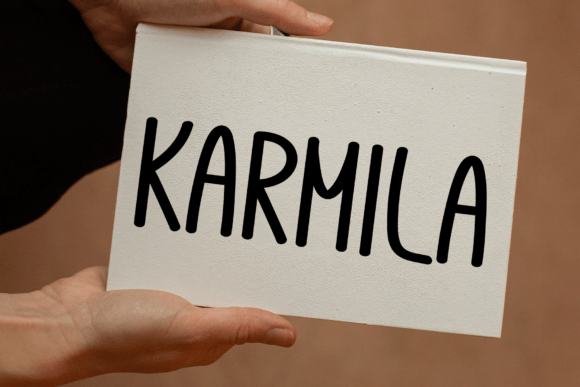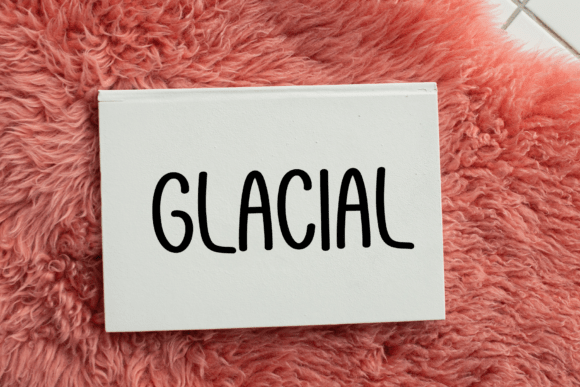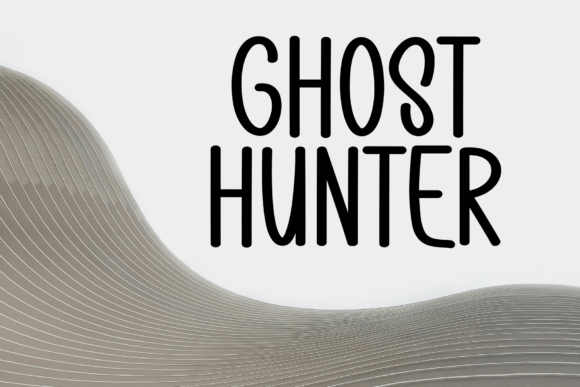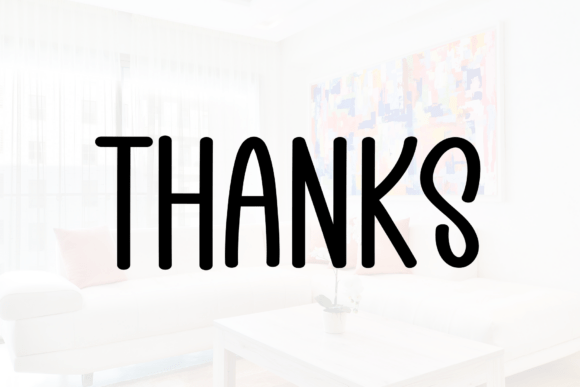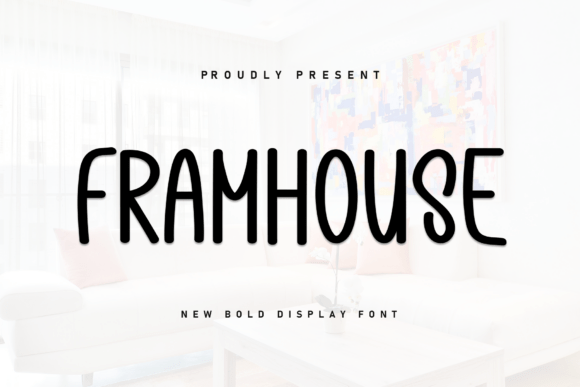
Framhouse Font: Elevate Your Designs with a Modern Country-Chic Aesthetic
In the world of typography, fonts play a crucial role in conveying the tone and personality of a brand. For designers and crafters looking to add a touch of rustic charm to their creations, Framhouse Font is an excellent choice. This clean, sturdy, and highly approachable display font is designed to bring a modern “country-chic” feel to your designs, making it perfect for a wide range of applications.
What is Framhouse Font?
Framhouse Font is characterized by its tall, condensed letterforms and smooth, monolinear construction. This unique combination gives the font a distinctive look that balances structural clarity with a warm, handcrafted spirit. The bold presence and high legibility of Framhouse make it an ideal choice for various design projects, from home decor branding to artisanal kitchen labels, farmhouse-style signage, and organized lifestyle blog headers.
Key Features of Framhouse Font
- Clean and Sturdy Design: Framhouse Font boasts a clean and sturdy design, making it perfect for headlines, titles, and short paragraphs of text.
- Tall and Condensed Letterforms: The font’s tall and condensed letterforms give it a unique and stylish appearance, setting it apart from other fonts.
- Smooth Monolinear Construction: The smooth monolinear construction of Framhouse Font adds a touch of sophistication and elegance to any design.
- High Legibility: The font’s high legibility makes it easy to read, even at smaller sizes, making it perfect for a wide range of applications.
Use Cases for Framhouse Font
Framhouse Font is incredibly versatile and can be used in a variety of design projects, including:
- Home Decor Branding: Add a touch of rustic charm to your home decor branding with Framhouse Font. Its modern country-chic aesthetic makes it perfect for home decor labels, packaging, and marketing materials.
- Artisanal Kitchen Labels: Framhouse Font is an excellent choice for artisanal kitchen labels, adding a touch of warmth and personality to your products.
- Farmhouse-Style Signage: The font’s bold presence and high legibility make it perfect for farmhouse-style signage, including welcome signs, directional signs, and more.
- Organized Lifestyle Blog Headers: Framhouse Font is also perfect for organized lifestyle blog headers, adding a touch of modern country-chic style to your website or blog.
Why Choose Framhouse Font?
With so many fonts available, why choose Framhouse Font? Here are just a few reasons:
- Unique Aesthetic: Framhouse Font offers a unique and stylish aesthetic that sets it apart from other fonts.
- High Versatility: The font’s versatility makes it perfect for a wide range of design projects, from home decor branding to artisanal kitchen labels and more.
- Easy to Read: Framhouse Font is highly legible, making it easy to read even at smaller sizes.
- Modern Country-Chic Style: The font’s modern country-chic style makes it perfect for designers and crafters looking to add a touch of rustic charm to their creations.
In conclusion, Framhouse Font is an excellent choice for designers and crafters looking to add a touch of modern country-chic style to their creations. With its clean and sturdy design, tall and condensed letterforms, and smooth monolinear construction, Framhouse Font is perfect for a wide range of design projects. Its high legibility, versatility, and unique aesthetic make it an ideal choice for home decor branding, artisanal kitchen labels, farmhouse-style signage, and organized lifestyle blog headers. So why not give Framhouse Font a try and elevate your designs with a modern country-chic aesthetic?